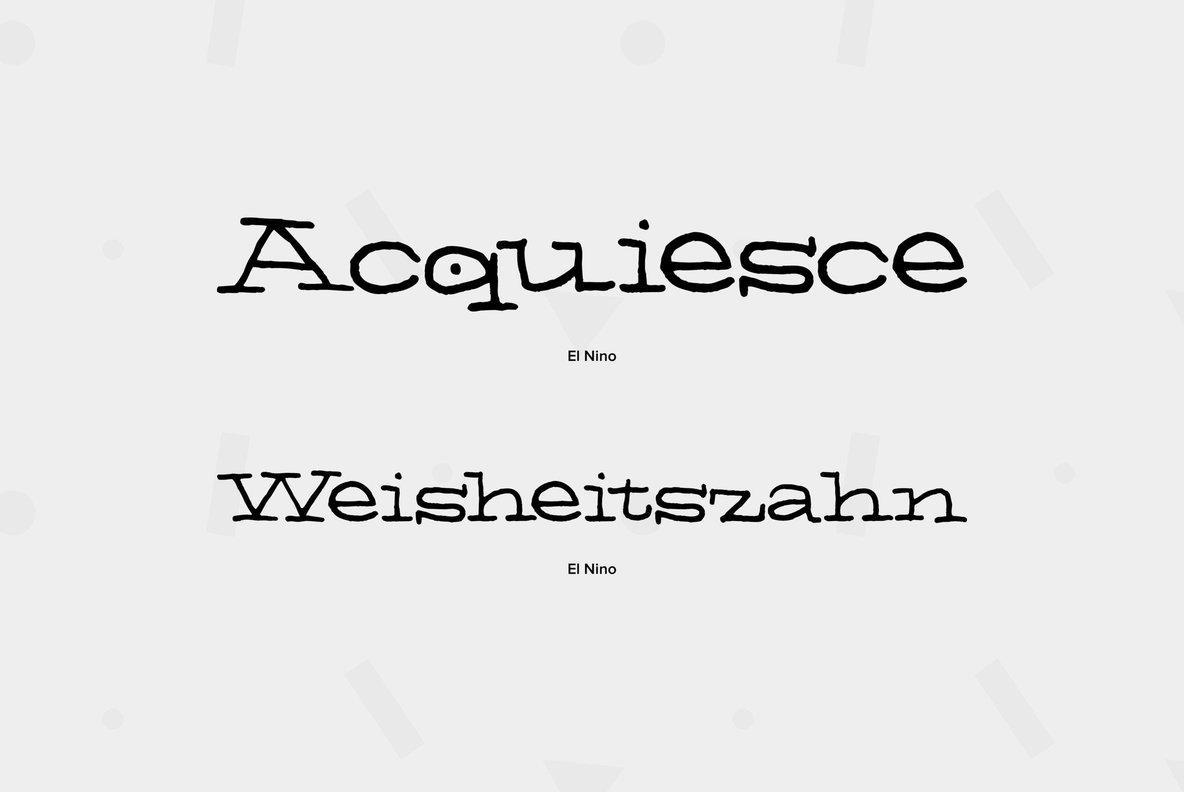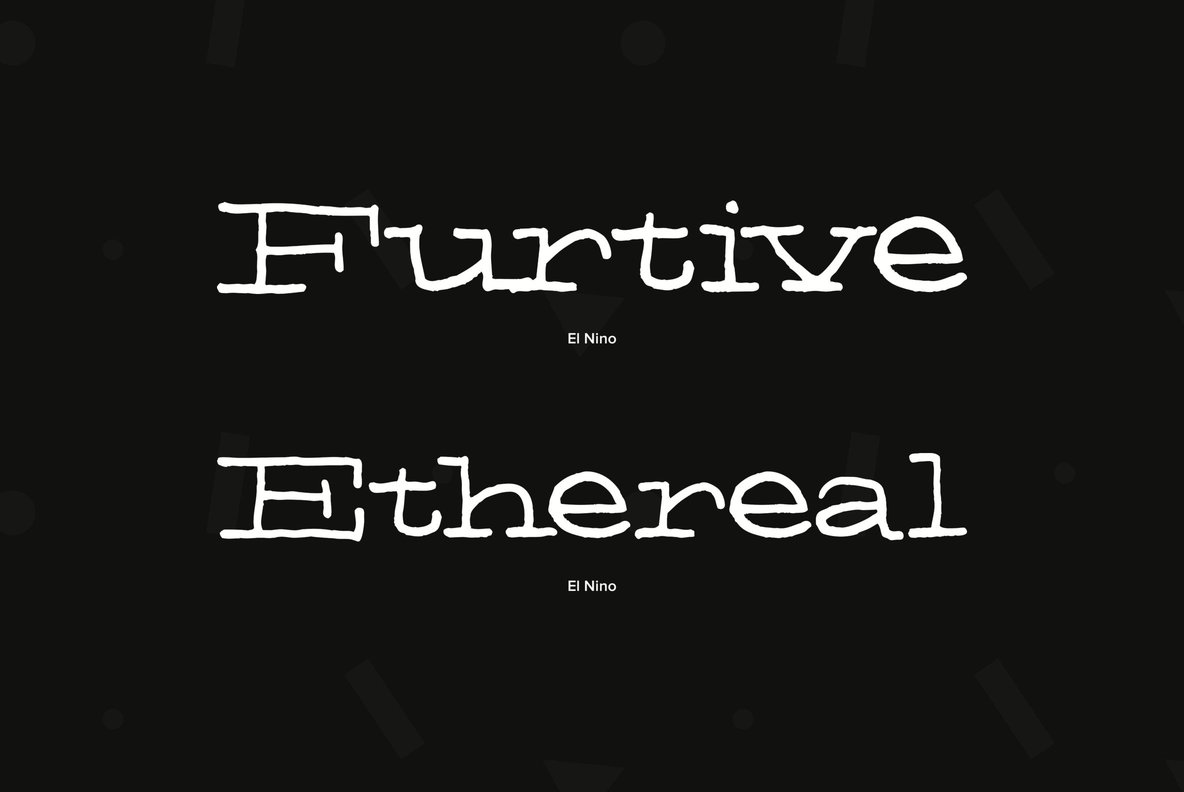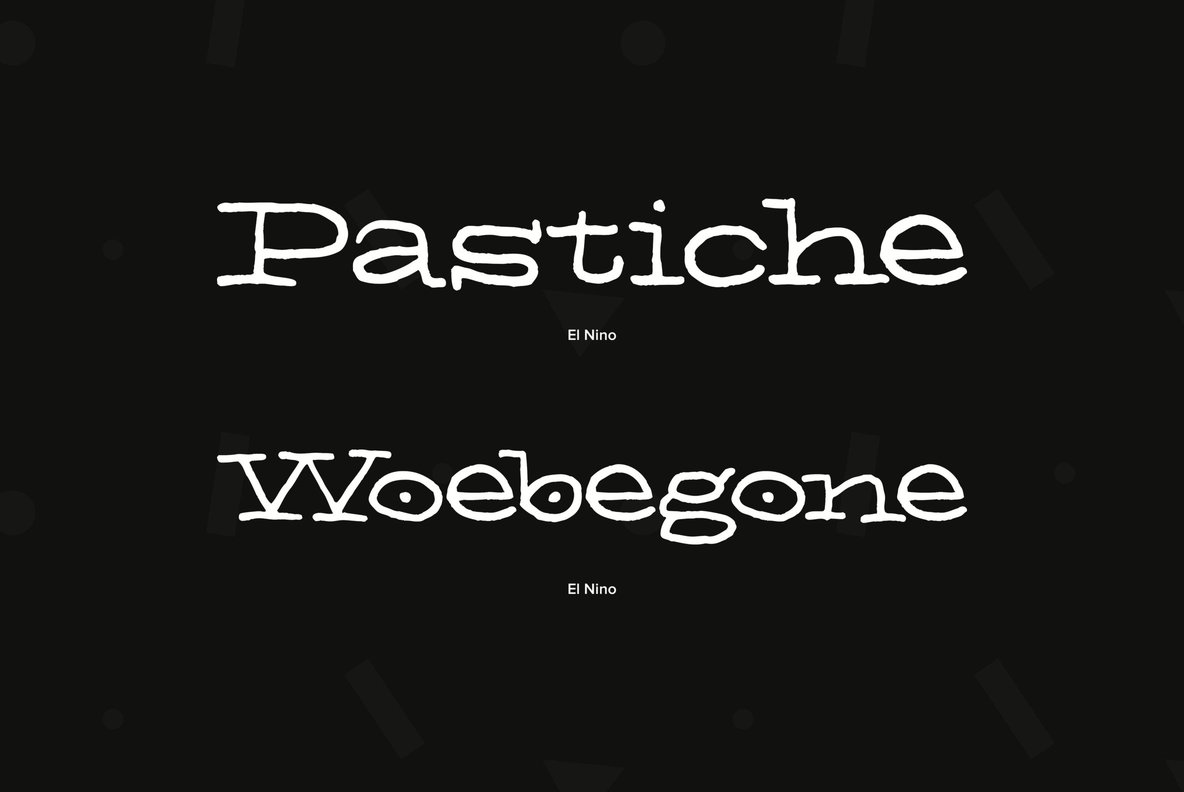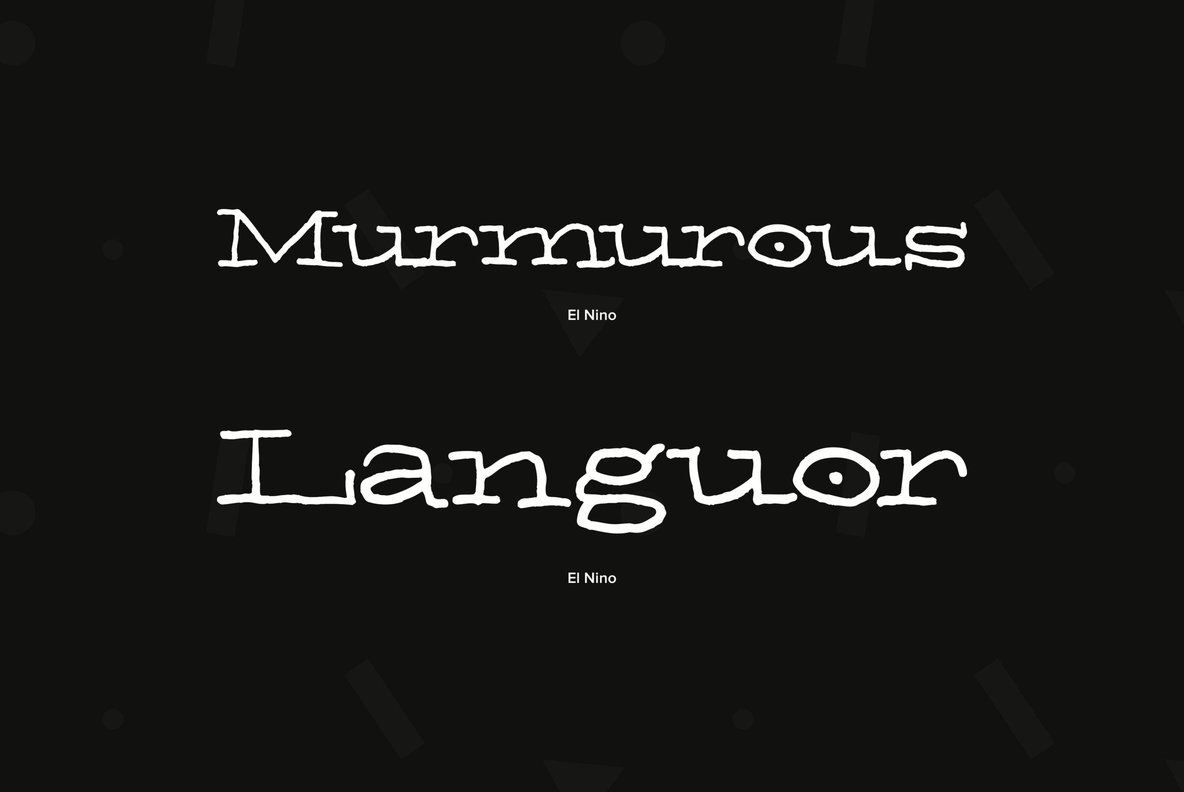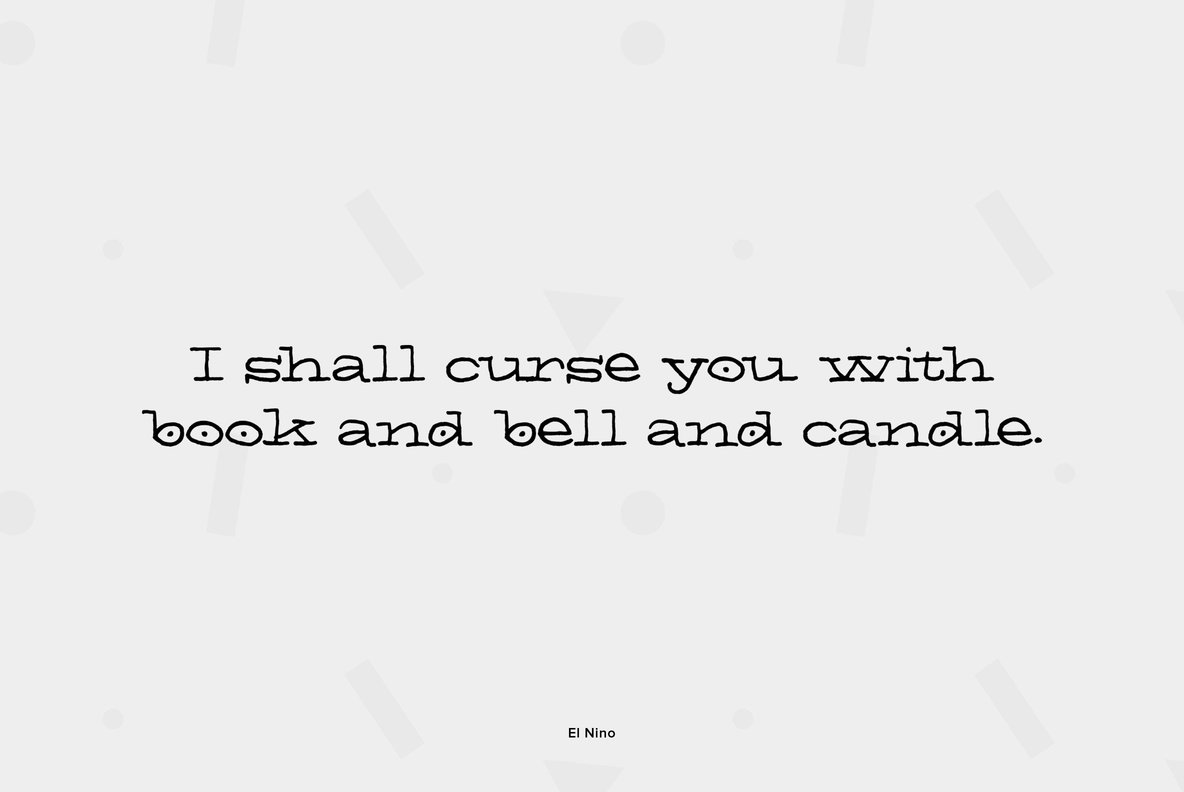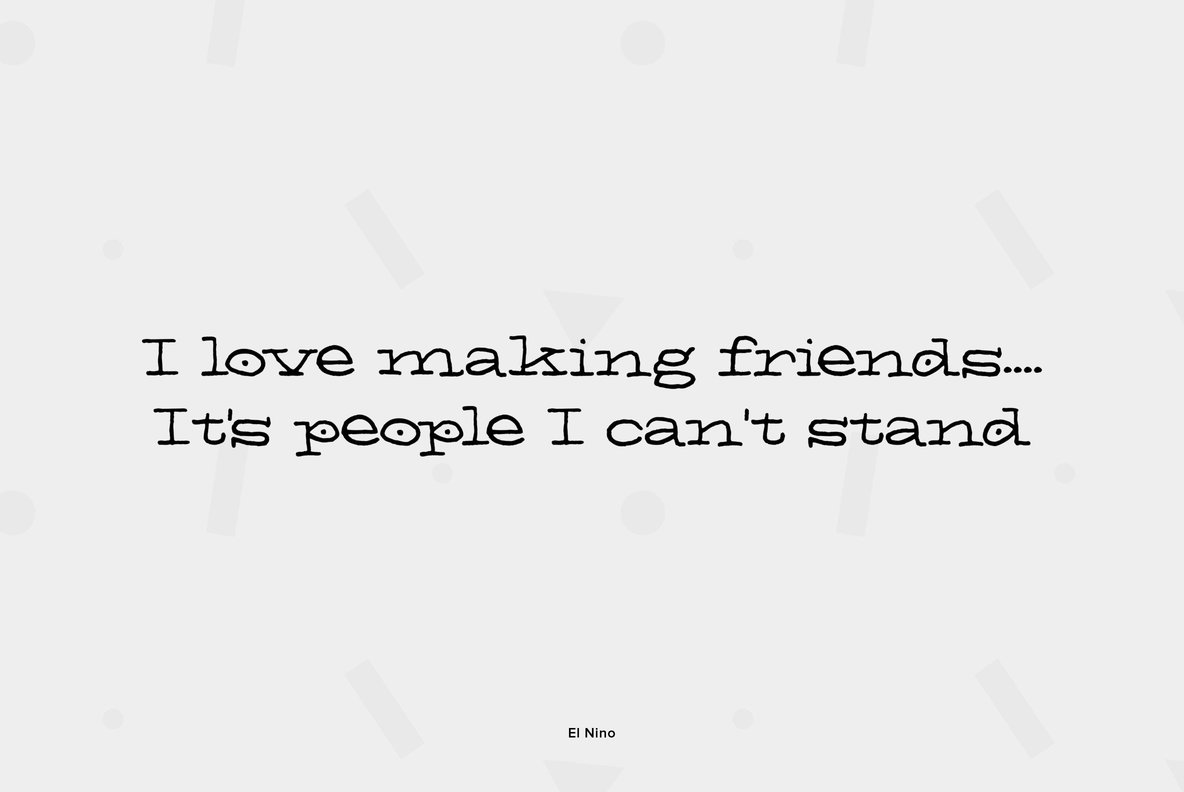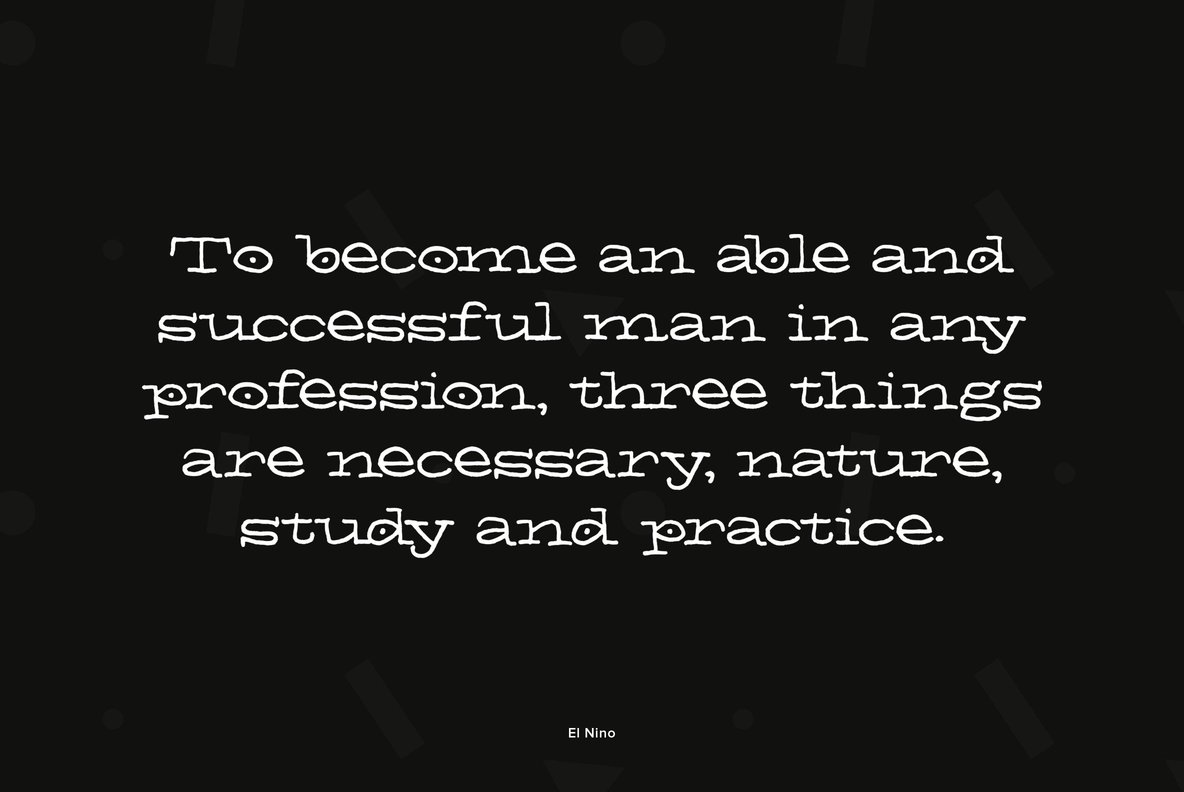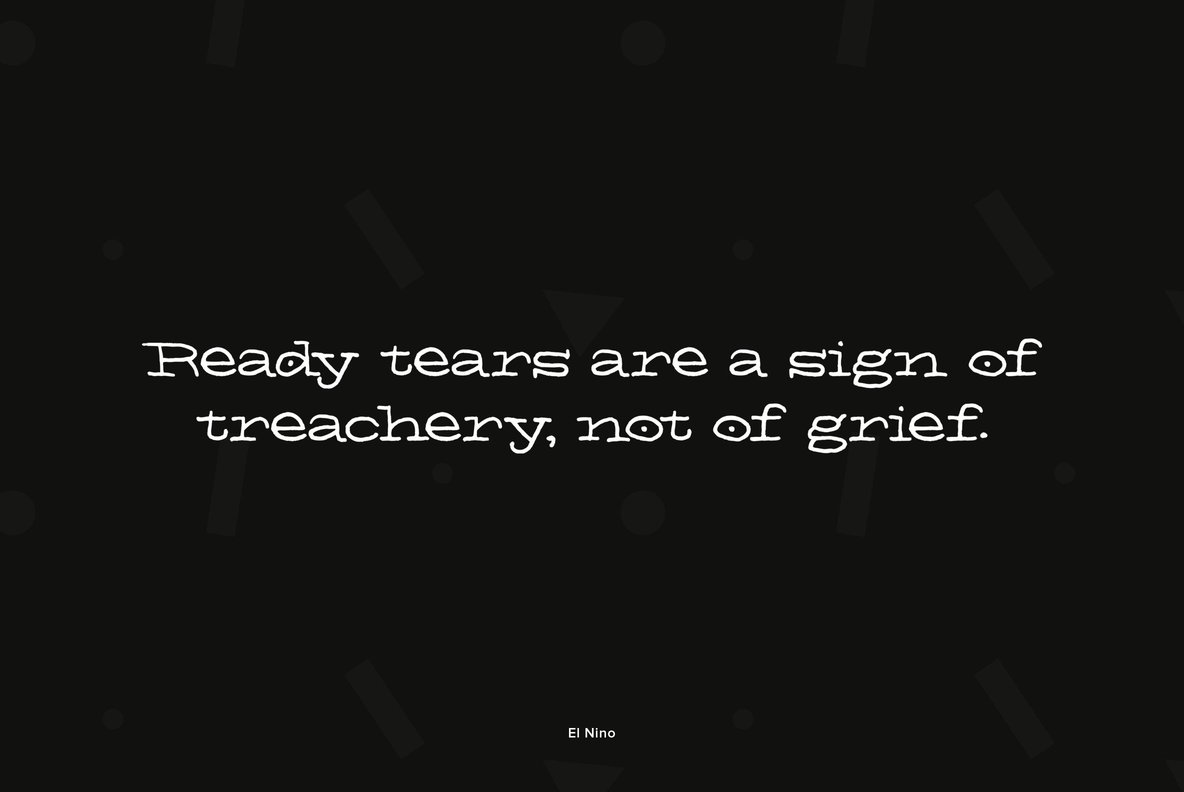
El Nino
Foundry: Font Diner
Summer snow and Winter heatwaves, here it comes friends . . It's El Niņo! Enjoy this wide distressed handwritten number sure to mix it up!